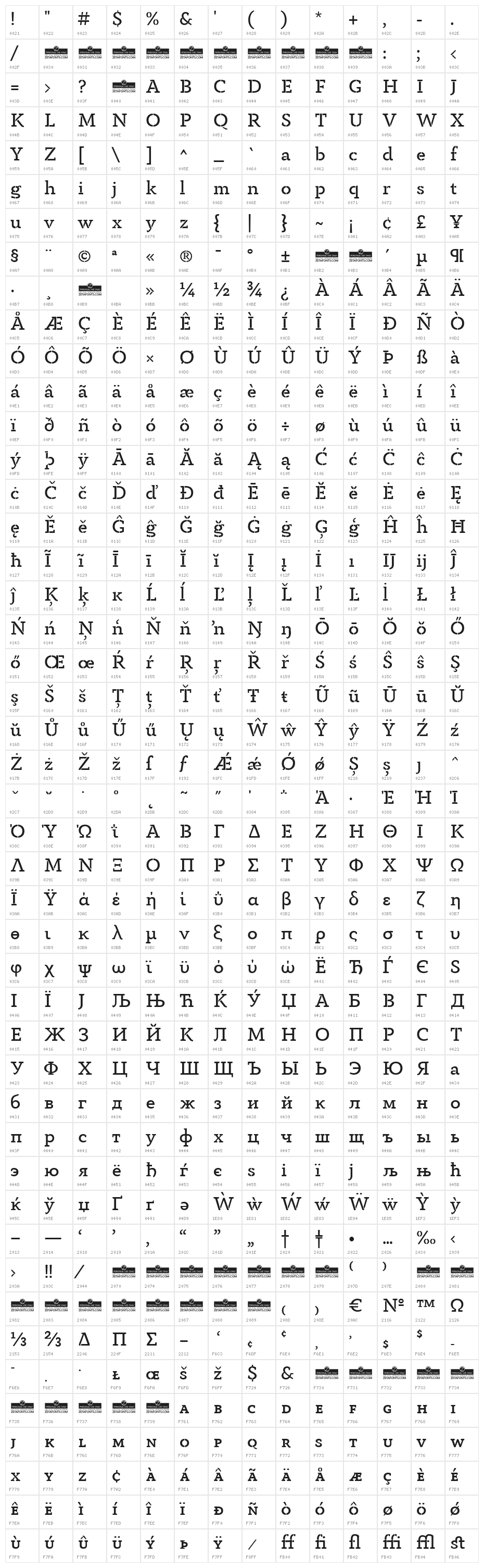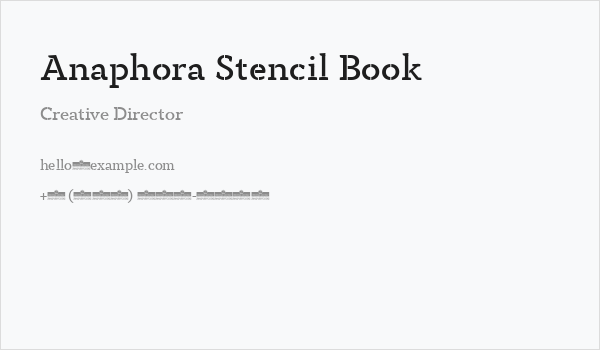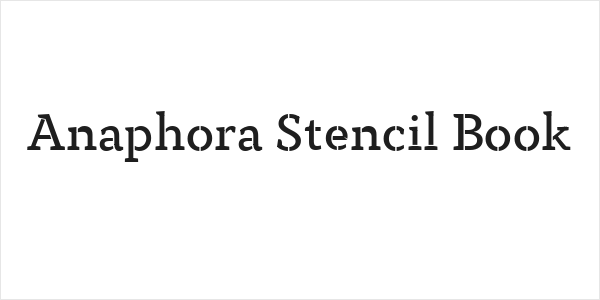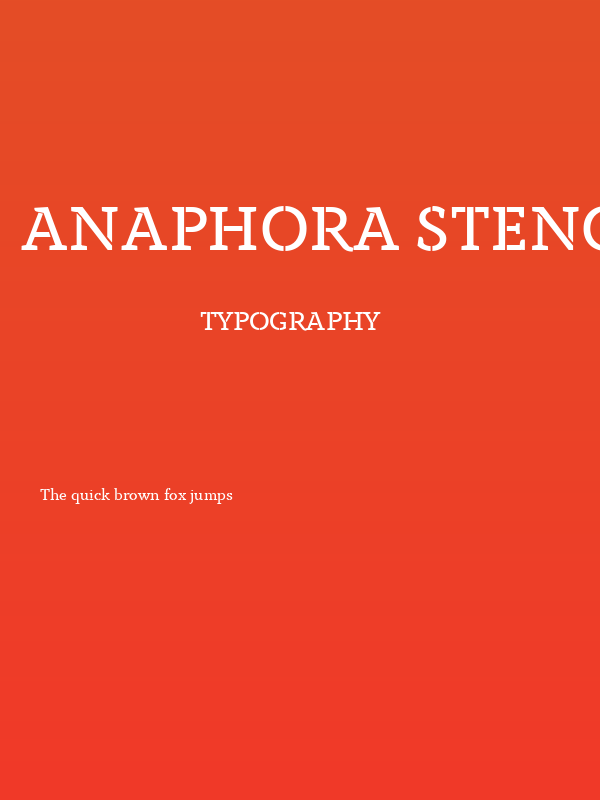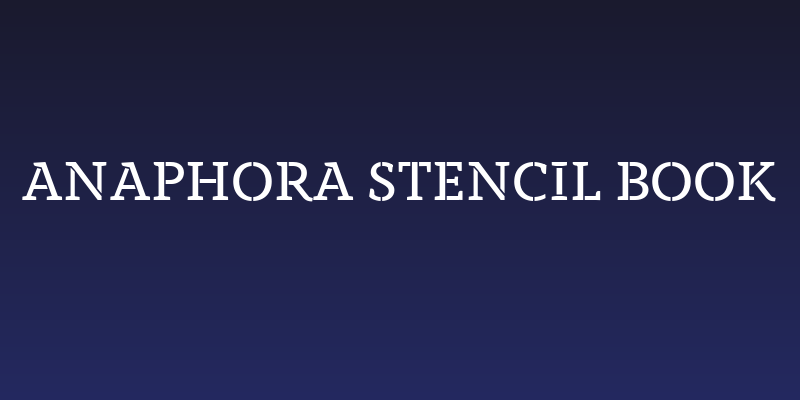
Anaphora Stencil Book Font
Anaphora Stencil Book Description
This font features a distinctive stencil style with clean, bold lines and geometric shapes. The uppercase letters are strong and impactful, while the lowercase letters maintain a consistent weight and structure. The font's design incorporates breaks in the strokes, typical of stencil fonts, which add a modern and industrial feel. The numerals and special characters are crafted with the same attention to detail, ensuring uniformity across all glyphs. This font is versatile, suitable for both digital and print media, and can be used to create a striking visual impact.
| Use Case | Headlines, Logos, Signage |
| Proposed Projects | Ideal for branding, signage, posters, and any project requiring a bold, modern aesthetic. |